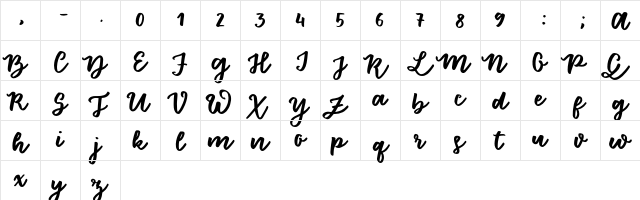
Floret Sample Regular
| Foundry | Ana Parracho |
| Designer | Ana Parracho |
Design Context for Floret Sample Typeface
Floret Sample is a composed and adaptable typeface that performs quietly and consistently across a wide range of design contexts.